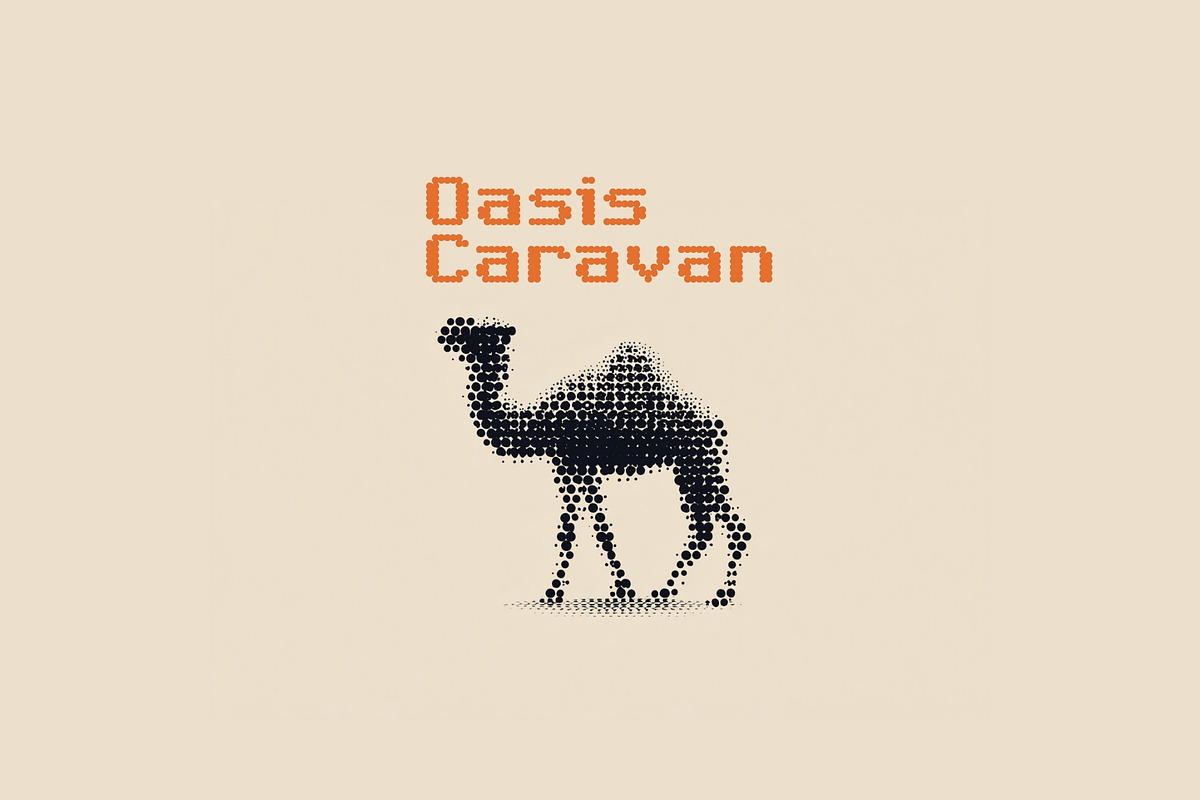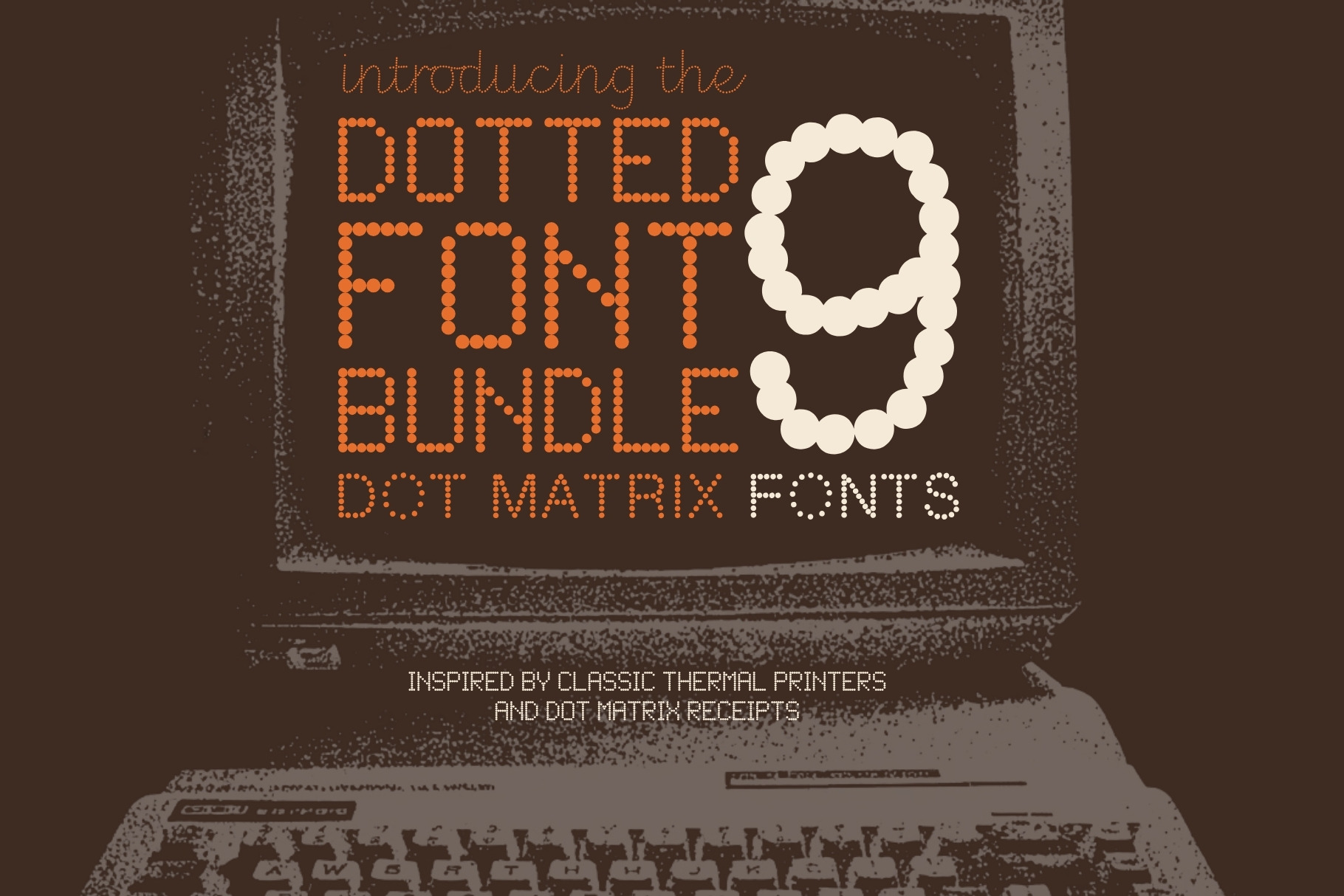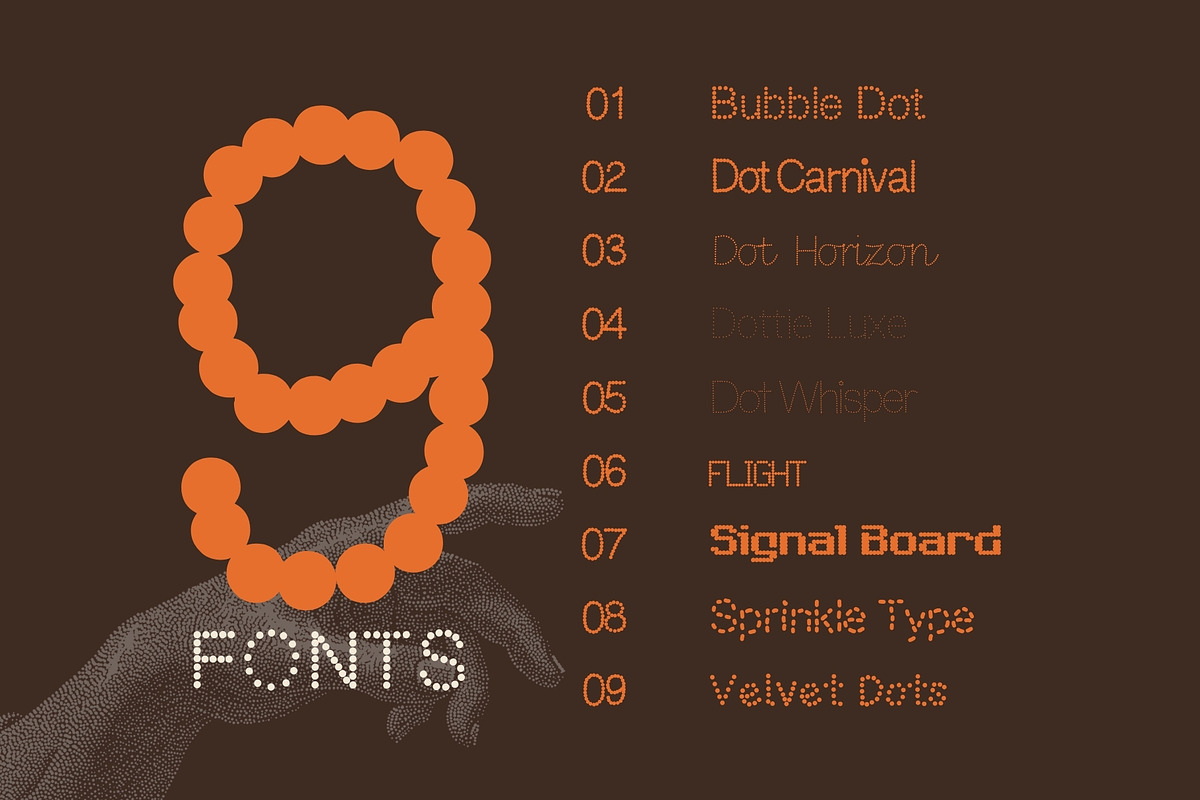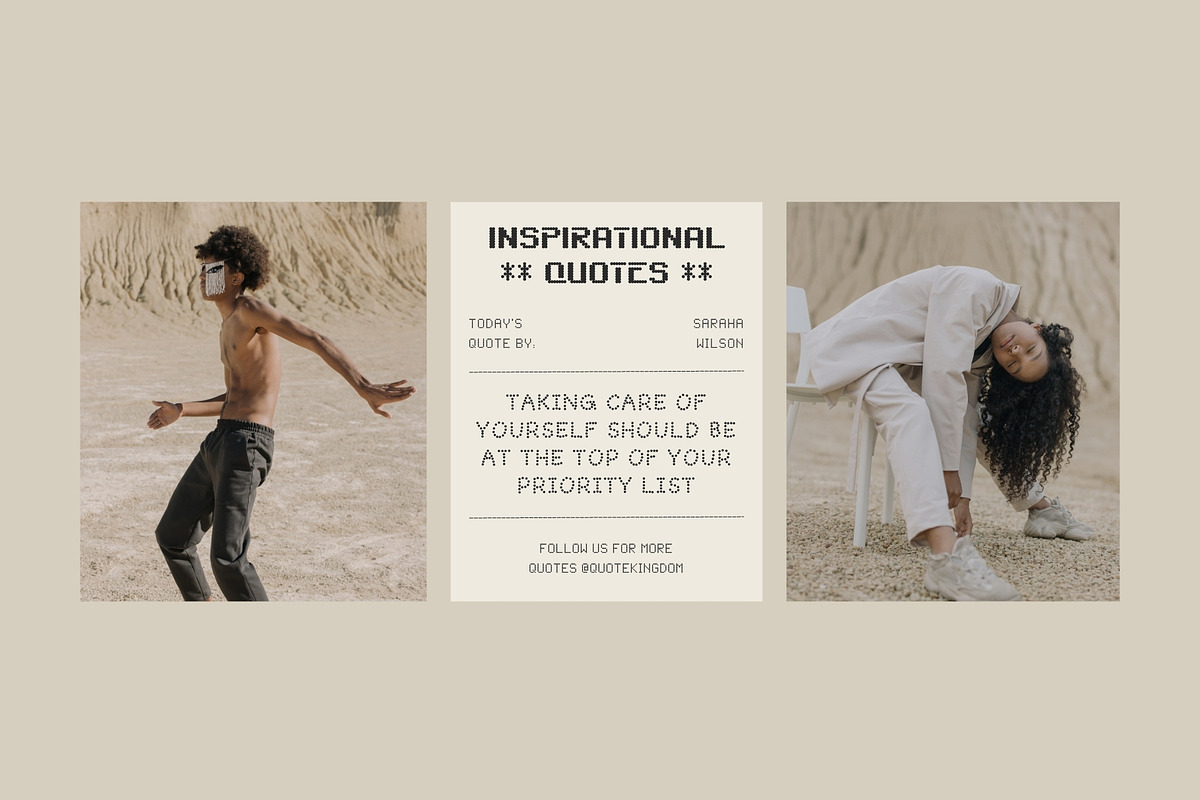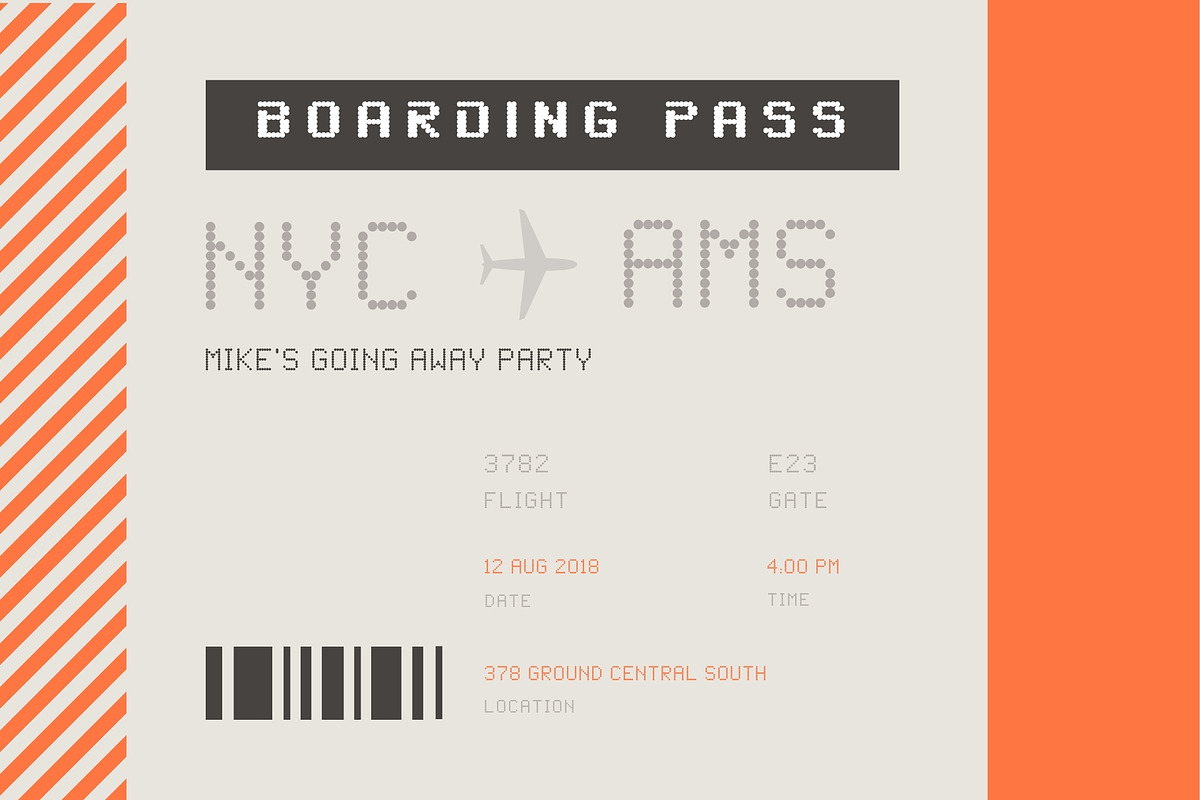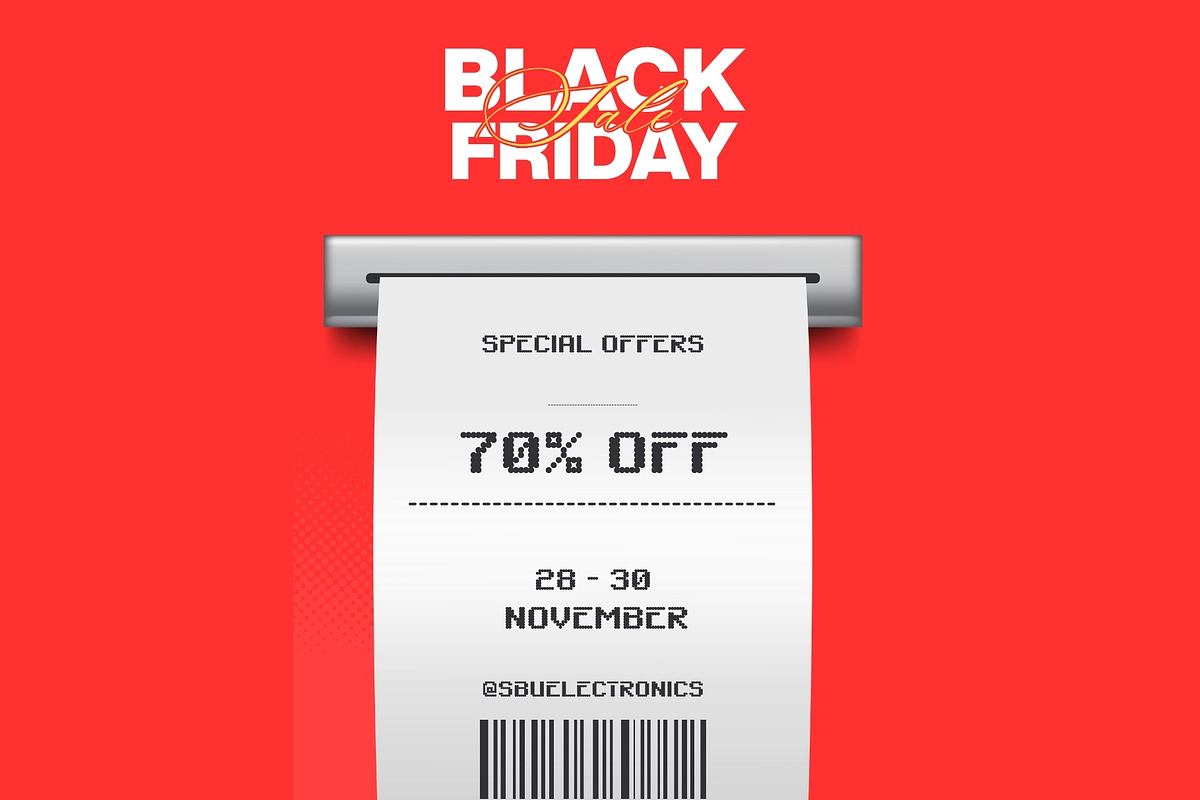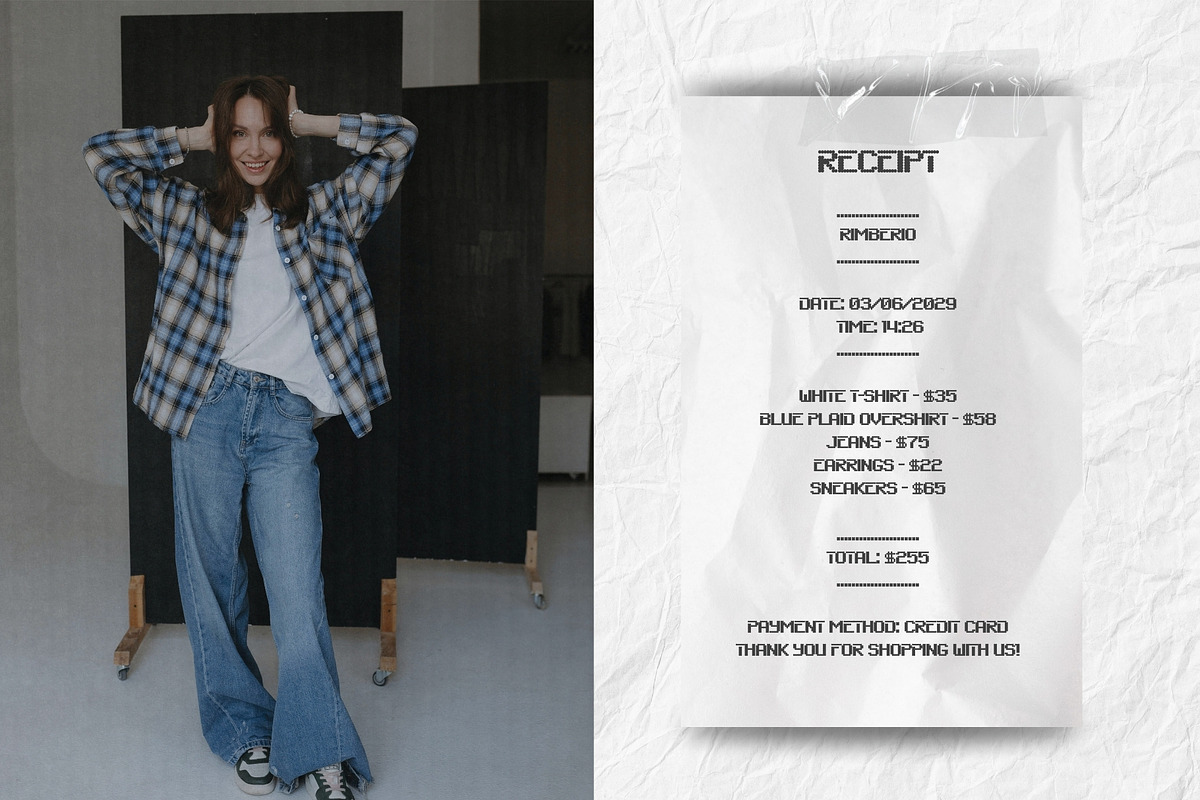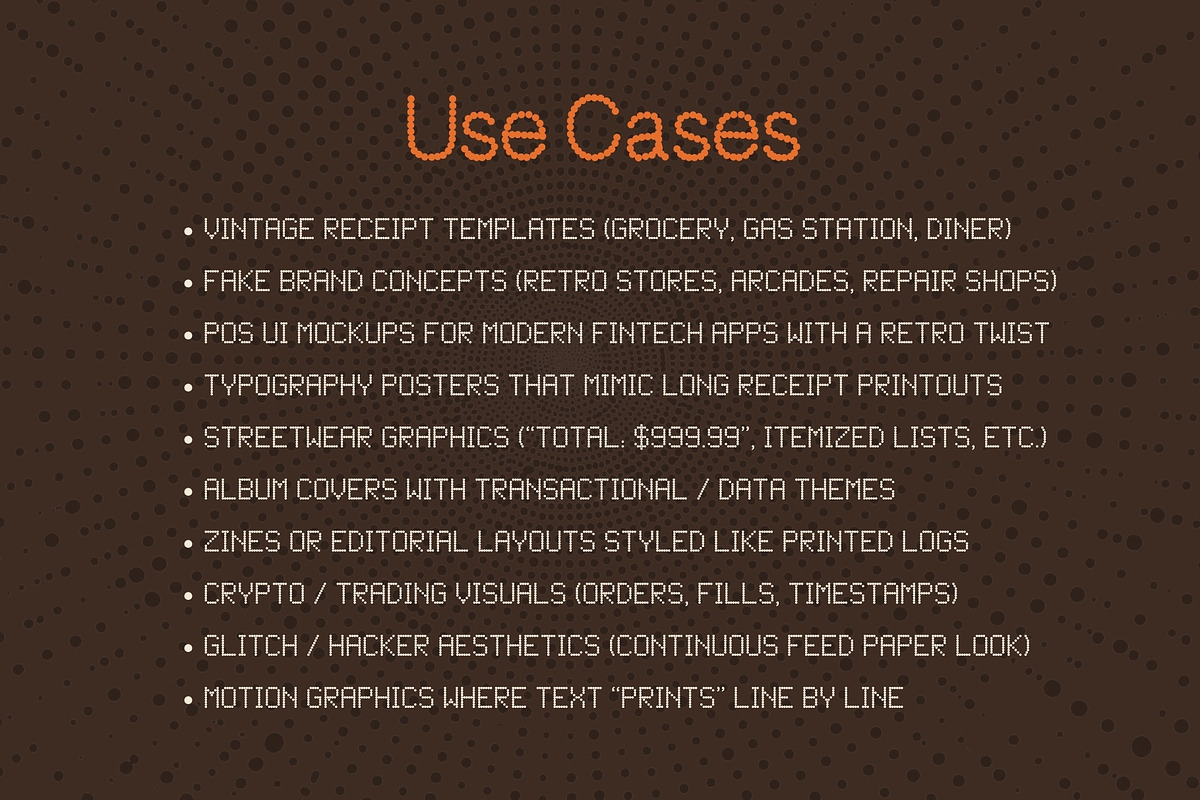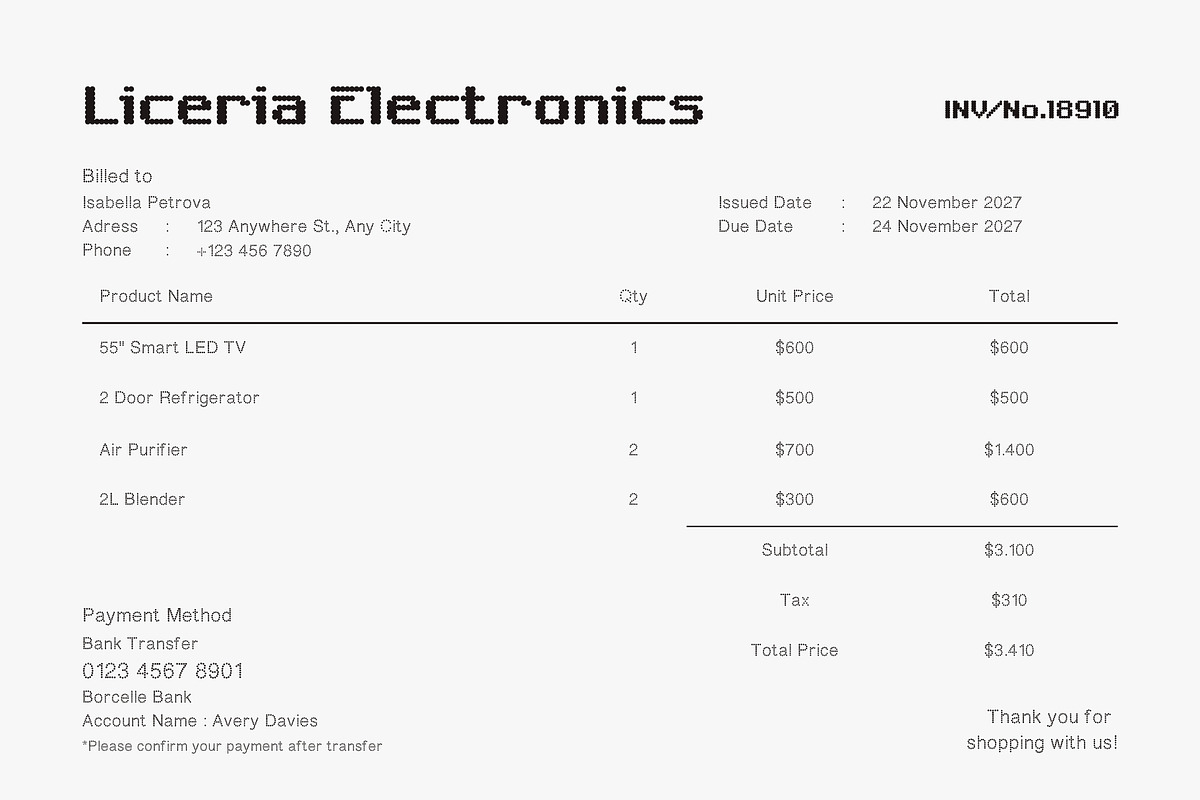
Dotted Font Bundle - 9 Matrix Fonts!
Step into the world of retro tech with this epic dotted font bundle, inspired by classic thermal printers and iconic dot matrix receipts. Every character is crafted with precision using micro-dot structures, capturing that unmistakable printed texture that defined an era of transactions, data logs, and early computing.
This bundle is perfect for designers who want to inject nostalgia, grit, and digital authenticity into their work—whether you're building futuristic UI, bold streetwear graphics, or experimental editorial layouts.
From long scrolling receipt designs to data-heavy visuals, this font brings a unique blend of retro aesthetics and modern versatility. It’s not just a typeface—it’s a full design system rooted in transactional visuals and tech culture.
✨ Perfect for:
- Receipt-style designs & templates
- Tech branding & futuristic UI
- Posters, zines & editorial layouts
- Streetwear graphics & merch
- Data visualization & infographics
- Motion graphics & digital projects